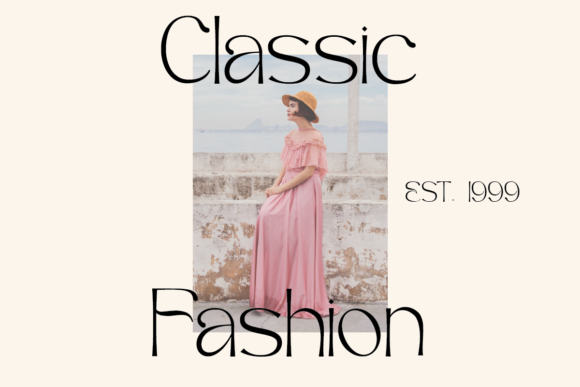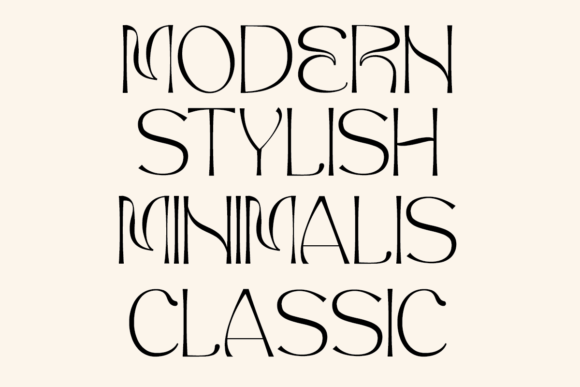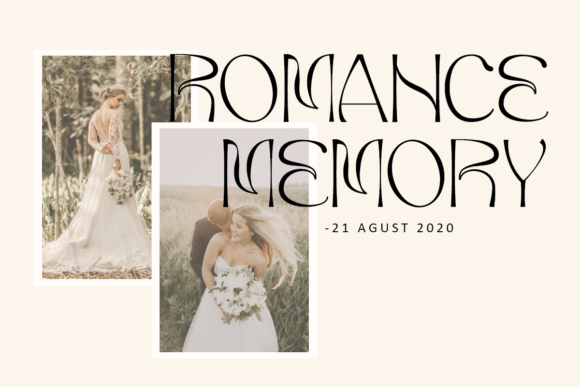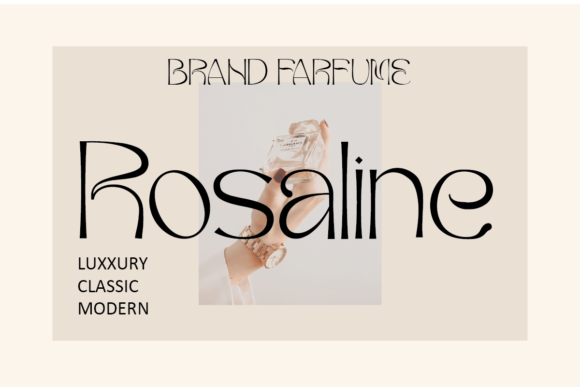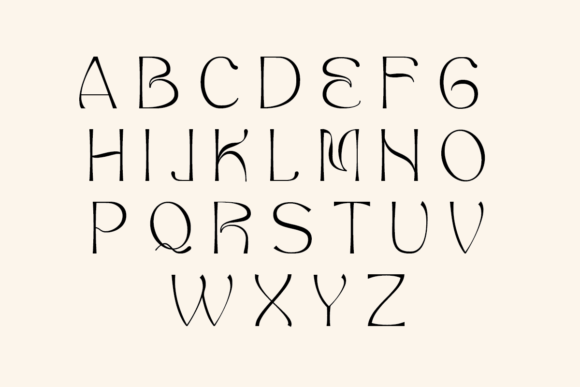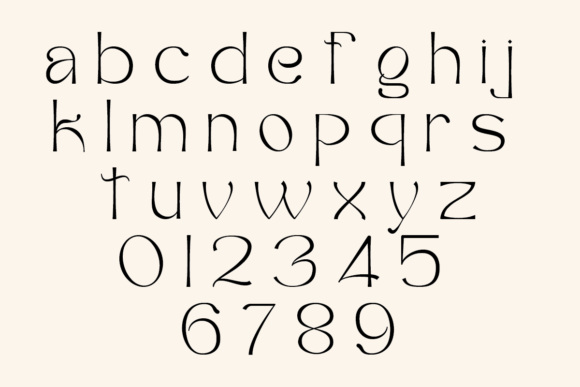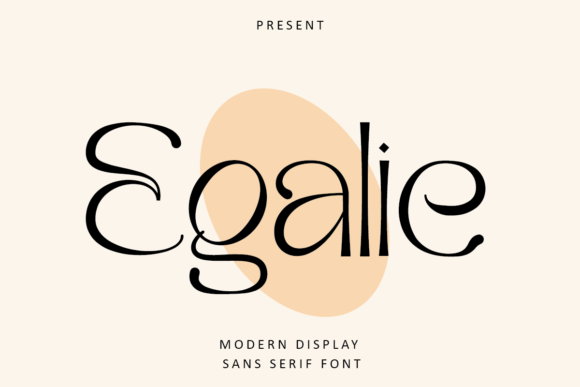
Egalie Font: A Cool, Whimsical, and Modern Display Font for Your Creative Projects
Are you a designer or crafter looking for a unique and versatile font to elevate your creative projects? Look no further than Egalie Font, a cool, whimsical, and modern display font that’s sure to become a valuable asset in your font library. With its distinctive character and wide range of uses, Egalie Font has the potential to enhance any creation, regardless of the topic or theme.
What Makes Egalie Font So Special?
Egalie Font is a modern display font that boasts a unique blend of playfulness and sophistication. Its whimsical design makes it perfect for projects that require a touch of personality and flair, while its clean lines and elegant curves ensure that it remains highly legible and versatile. Whether you’re working on a branding project, a marketing campaign, or a personal craft, Egalie Font is the perfect choice for adding a dash of creativity and style.
Key Features of Egalie Font
- Unique and Whimsical Design: Egalie Font features a one-of-a-kind design that’s both playful and elegant, making it perfect for projects that require a touch of personality.
- Modern and Sophisticated: Despite its whimsical nature, Egalie Font remains a modern and sophisticated font that’s suitable for a wide range of applications.
- Highly Legible: Egalie Font is designed to be highly legible, even at small sizes, making it perfect for use in a variety of contexts.
- Versatile: Egalie Font can be used for a wide range of projects, from branding and marketing to crafting and DIY.
How to Use Egalie Font in Your Projects
Egalie Font is an incredibly versatile font that can be used in a wide range of projects. Here are just a few ideas to get you started:
- Branding and Marketing: Use Egalie Font to add a touch of personality and whimsy to your branding and marketing materials, such as logos, brochures, and social media graphics.
- Crafting and DIY: Egalie Font is perfect for crafters and DIY enthusiasts who want to add a personal touch to their projects, such as handmade cards, gift tags, and scrapbooking.
- Web Design: Use Egalie Font to add a touch of elegance and sophistication to your website or blog.
- Graphic Design: Egalie Font is perfect for graphic designers who want to add a unique and creative element to their designs, such as posters, flyers, and infographics.
Why Choose Egalie Font?
With so many fonts to choose from, why should you choose Egalie Font? Here are just a few reasons:
- Unique Design: Egalie Font features a unique and one-of-a-kind design that’s sure to set your projects apart.
- High-Quality: Egalie Font is a high-quality font that’s designed to deliver exceptional results, even at small sizes.
In conclusion, Egalie Font is a cool, whimsical, and modern display font that’s perfect for designers and crafters who want to add a touch of personality and elegance to their projects. With its unique design, high-quality construction, and ease of use, Egalie Font is sure to become a valuable asset in your font library. So why wait? Download Egalie Font today and start creating amazing projects that showcase your creativity and style!